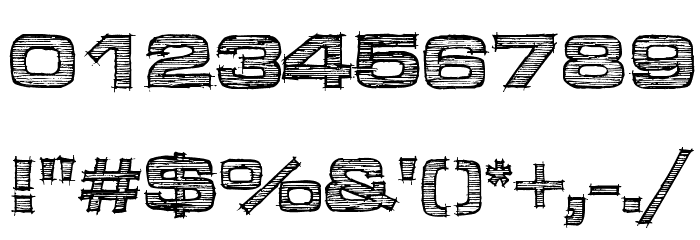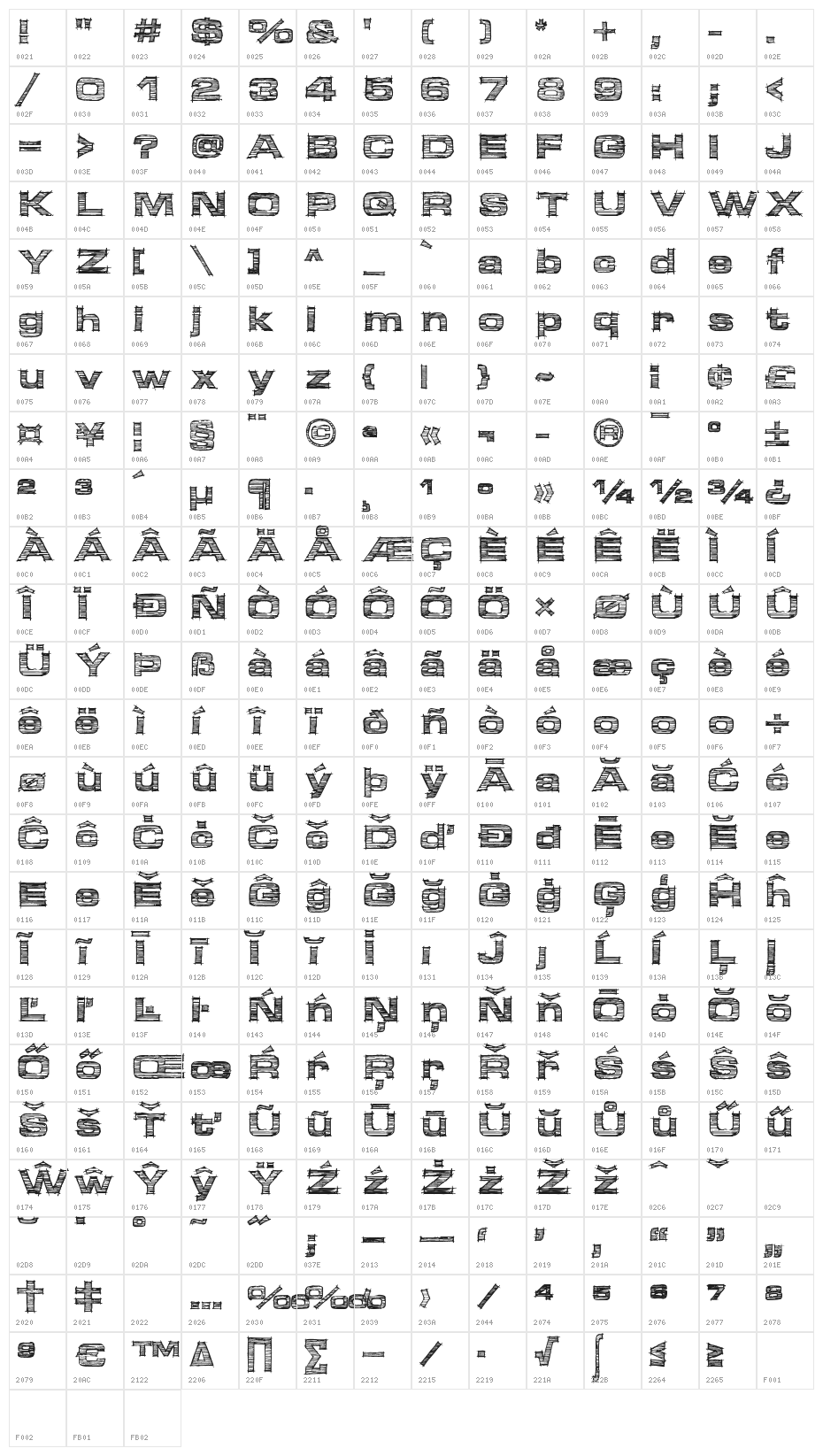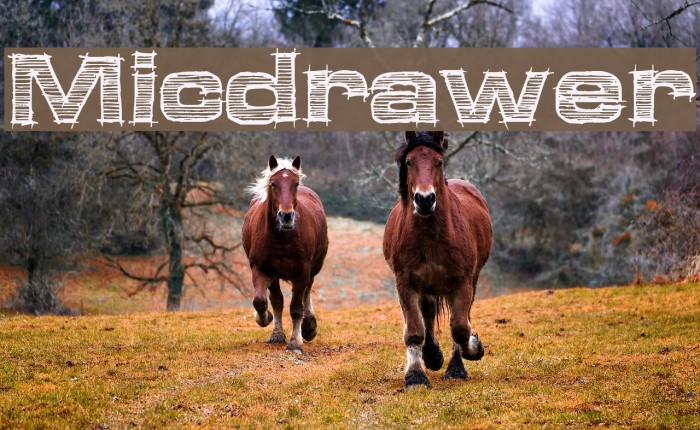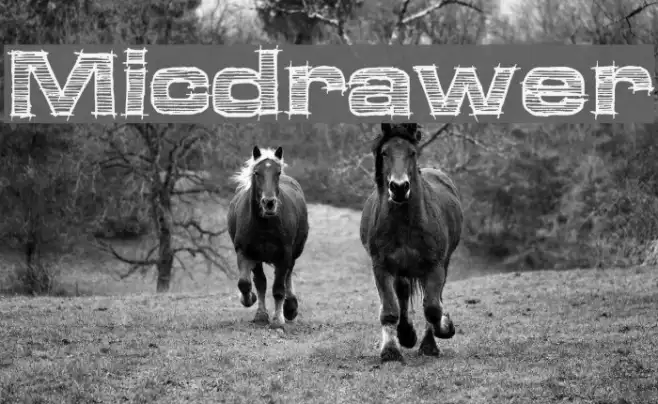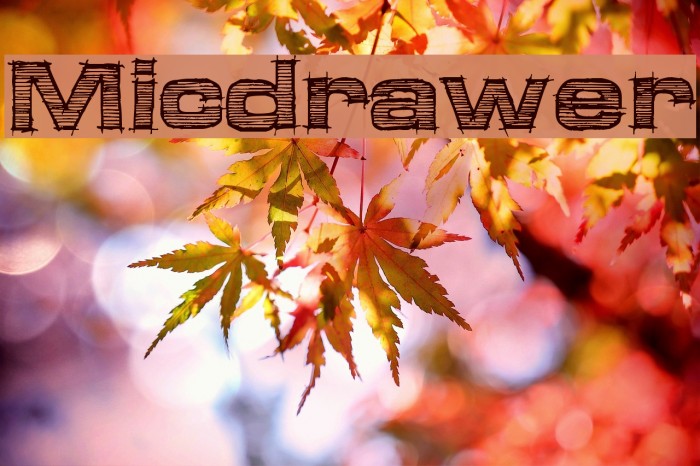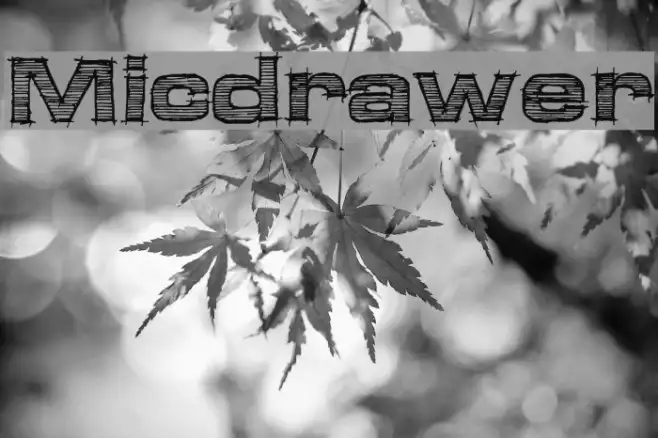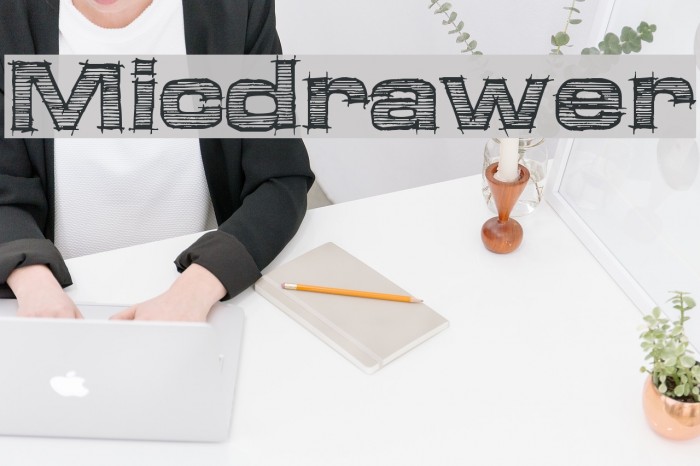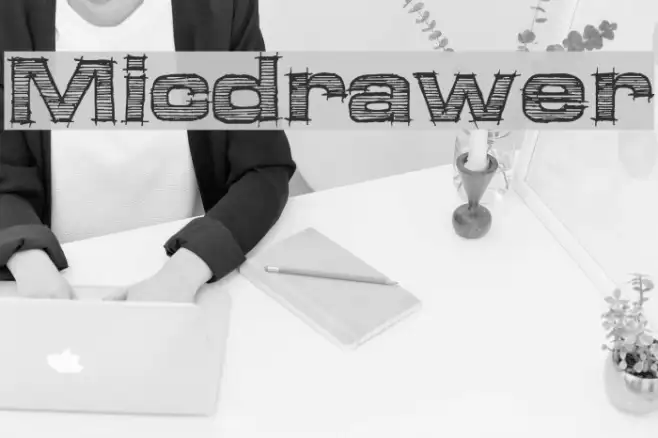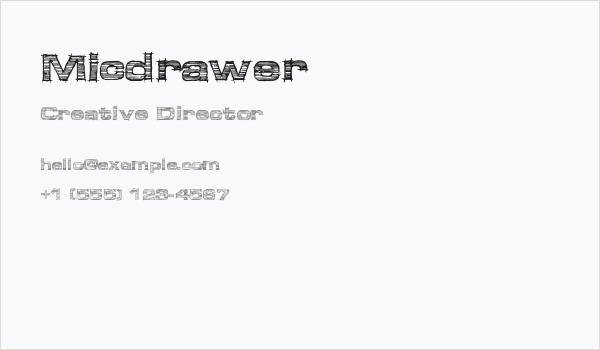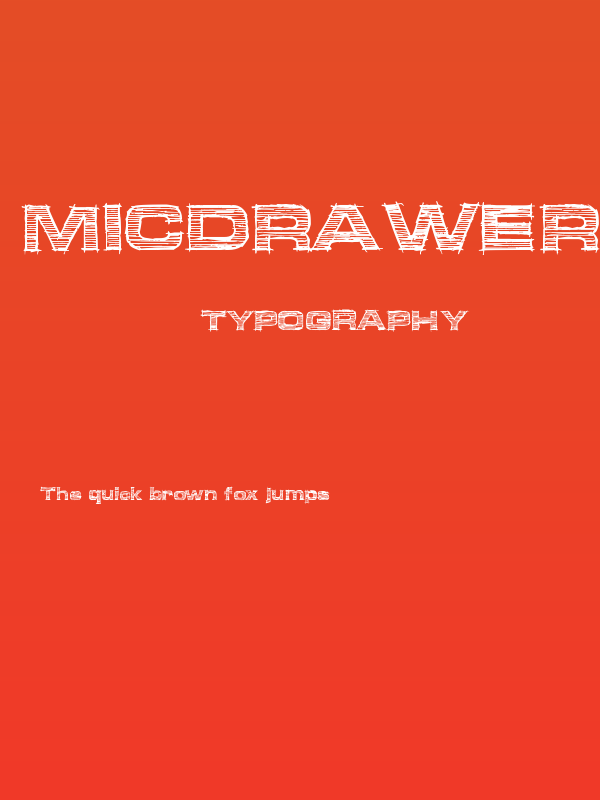
Micdrawer Font
Micdrawer Description
This font features a unique, sketch-like appearance with a hand-drawn quality. The characters are bold and have a textured, cross-hatched design that gives them a dynamic and artistic feel. The uppercase and lowercase letters maintain a consistent style, with the uppercase being slightly more pronounced. Numbers and special characters follow the same aesthetic, ensuring uniformity across all glyphs. The font's irregular lines and shading create a sense of movement and energy, making it stand out in any design. It's perfect for projects that require a creative and informal touch.
| Proposed Projects | Ideal for artistic projects, posters, album covers, and creative branding. |